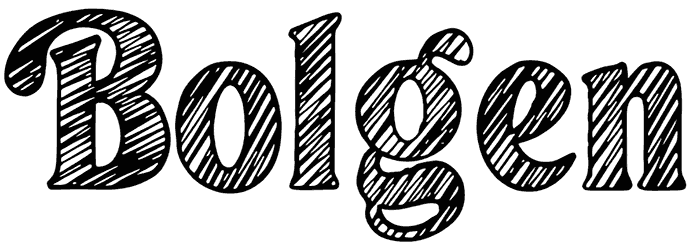
Bolgen Font
To make a sketch font similar to Bolgen font with hatched lines, you don’t need to spend much time designing it from scratch. Among the many uses for this font are the cover of the drawing book, products made with coffee, tea, and many t-shirts. By using this sketch font, you will be able to give your graphic designs a hand-drawn appearance.